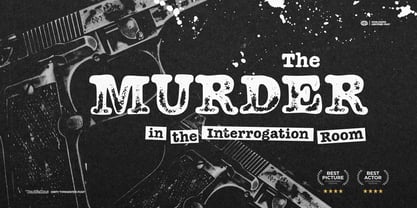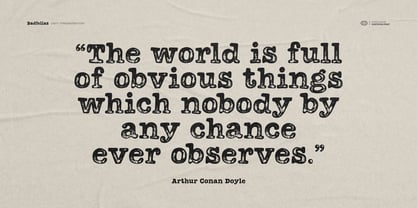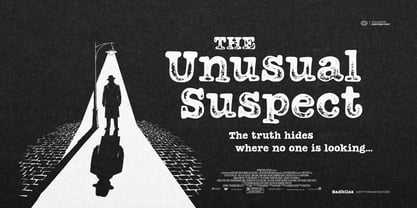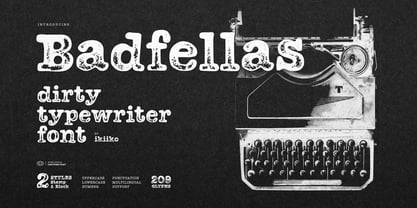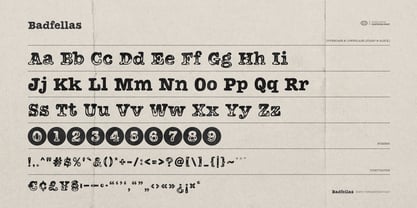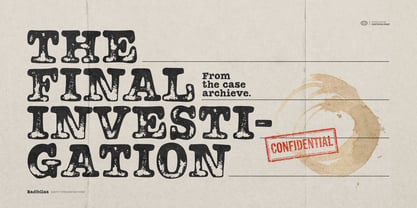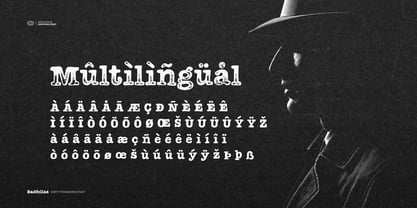
Badfellas
by IKIIKOWRK
The Badfellas Font Family was designed by Andhika Pradana and published by IKIIKOWRK. Badfellas contains 2 styles and family package options. More about this family
Proudly Present Badfellas - Dirty Typewriter Font, created by ikiiko Badfellas – Dirty Typewriter Font is a bold and distressed display typeface inspired by classic detective films, crime movie posters, and old American typewriter aesthetics. Featuring rough textures and heavy letterforms, this font delivers a gritty noir atmosphere perfect for film titles, crime posters, book covers, editorial headlines, branding, and vintage-inspired designs. Badfellas comes with two distinct styles — Stamp and Block — offering flexible character for layered compositions, bold headlines, and authentic crime-themed typography. Capturing the raw feel of police reports, investigation files, and retro print materials, Badfellas is an ideal choice for designers seeking a strong, cinematic, and timeless crime typography style. This typeface is perfect for a movie poster, book cover, magazine layout, fquotes, or simply as a stylish text overlay to any background image. What's Included? Uppercase & Lowercase Numbers & Punctuation Multilingual Support Enjoy our font!
Designers: Andhika Pradana
Foundry: IKIIKOWRK